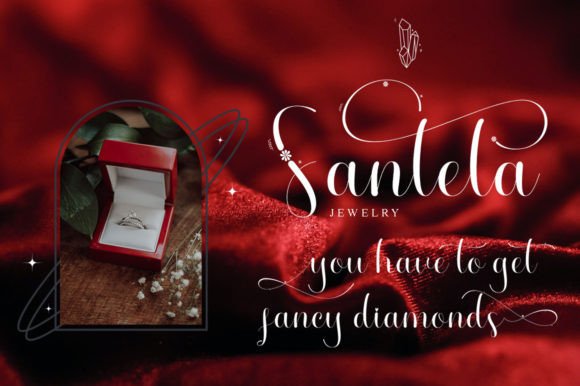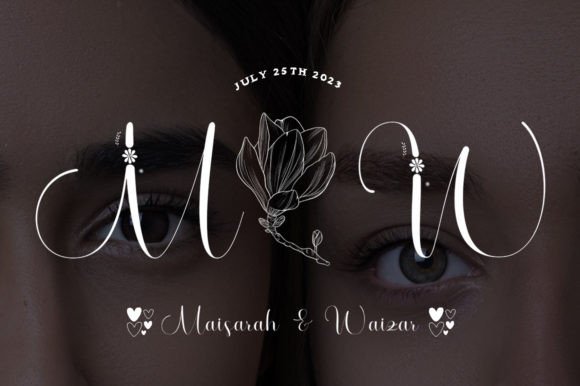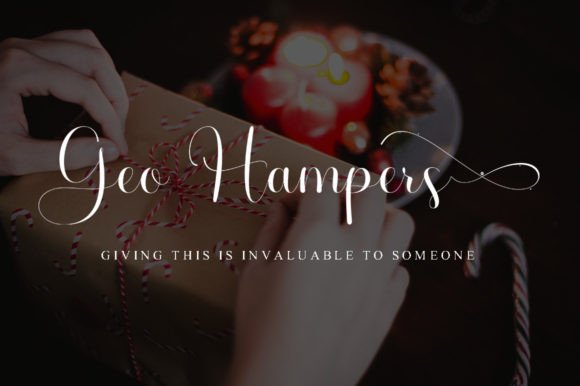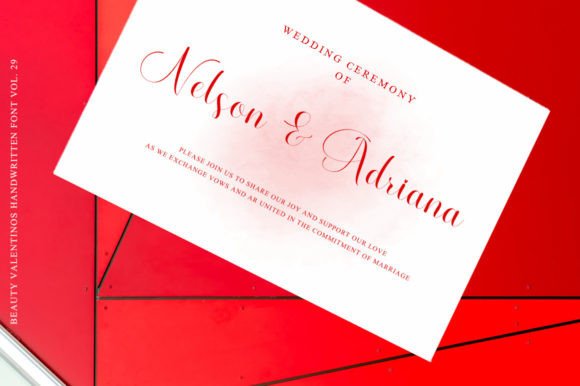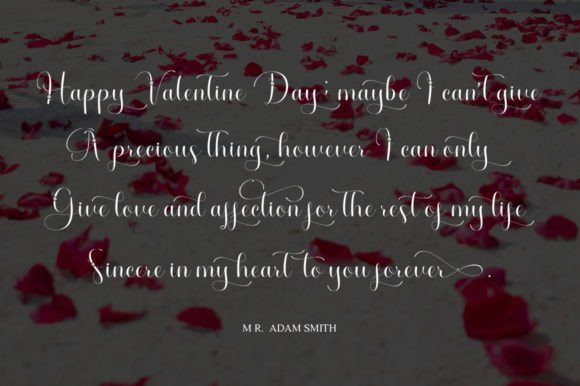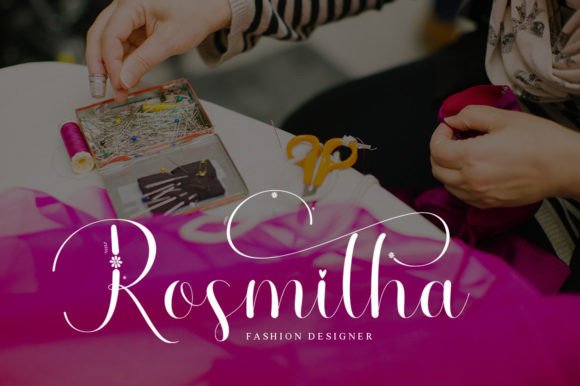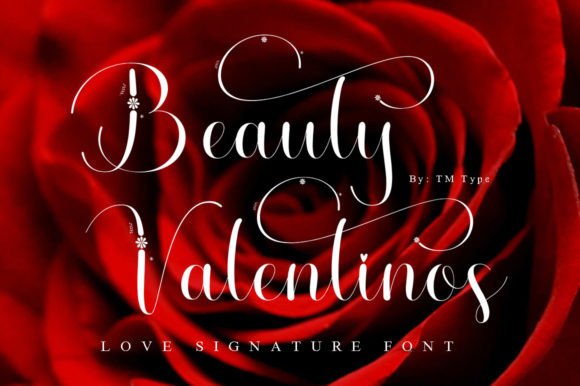
Introducing Beauty Valentinos Font: Elevate Your Designs with Luxury and Elegance
Are you a designer or crafter looking for a font that can add a touch of luxury and sophistication to your projects? Look no further than Beauty Valentinos Font. This beautiful light handwritten font is designed to make a stunning impact, with a unique feel that sets it apart from other fonts. In this article, we’ll explore the features and benefits of Beauty Valentinos Font, and show you how it can elevate your designs to the next level.
A Unique and Elegant Font
Beauty Valentinos Font is a light handwritten font that exudes elegance and sophistication. Its unique feel is perfect for designers and crafters who want to add a touch of luxury to their projects. Whether you’re creating a wedding invitation, a branding campaign, or a packaging design, Beauty Valentinos Font is the perfect choice. Its delicate lines and curves create a beautiful visual effect that will leave a lasting impression on your audience.
One of the standout features of Beauty Valentinos Font is its PUA (Private Use Area) encoding. This means that you can access all of the glyphs and swashes with ease, giving you complete creative control over your designs. With PUA encoding, you can easily insert special characters, ligatures, and other unique elements that will make your designs stand out. Whether you’re a seasoned designer or just starting out, PUA encoding makes it easy to get the most out of Beauty Valentinos Font.
Add a Luxury Spark to Your Designs
Beauty Valentinos Font is designed to add a luxury spark to any design project. Its elegant lines and curves create a sophisticated visual effect that will elevate your designs to the next level. Whether you’re creating a high-end branding campaign or a beautiful wedding invitation, Beauty Valentinos Font is the perfect choice. Its unique feel and stunning impact make it perfect for designers and crafters who want to create something truly special.
Beauty Valentinos Font is perfect for designers and crafters who want to create beautiful, high-quality designs. Its elegant lines and curves make it perfect for a wide range of projects, from wedding invitations and branding campaigns to packaging designs and more. Whether you’re a seasoned designer or just starting out, Beauty Valentinos Font is a great addition to your font library.
Key Features of Beauty Valentinos Font
- Beautiful light handwritten font with a unique feel
- Perfect for adding a luxury spark to any design project
- Elegant lines and curves create a sophisticated visual effect
- Perfect for designers and crafters who want to create high-quality designs
| Font Name | Beauty Valentinos Font |
| Author | TM Type |
In conclusion, Beauty Valentinos Font is a beautiful and elegant font that is perfect for designers and crafters who want to add a touch of luxury to their projects. Its unique feel and stunning impact make it perfect for a wide range of designs, from wedding invitations and branding campaigns to packaging designs and more. With its PUA encoding and easy-to-use glyphs and swashes, Beauty Valentinos Font is a great addition to any font library.